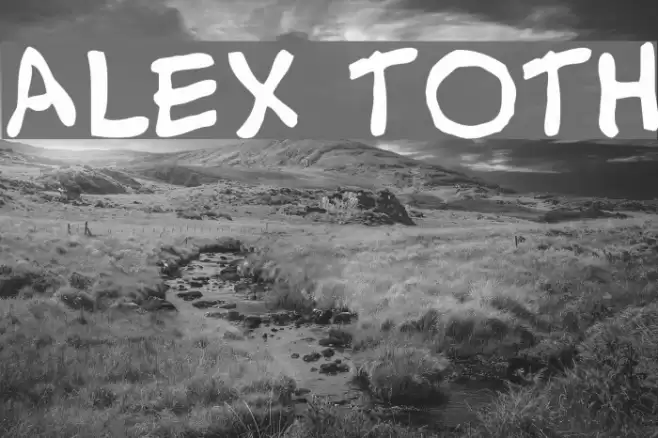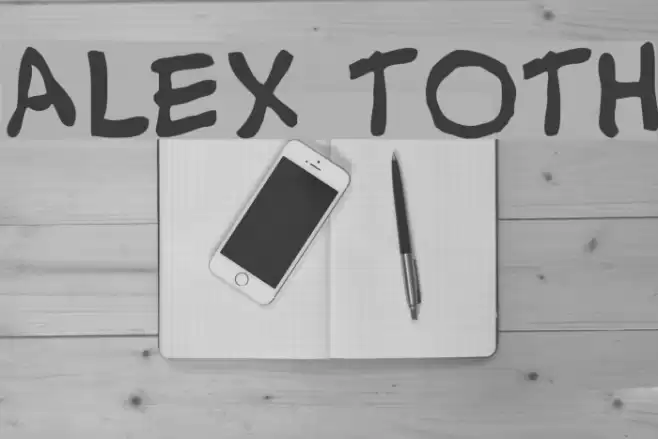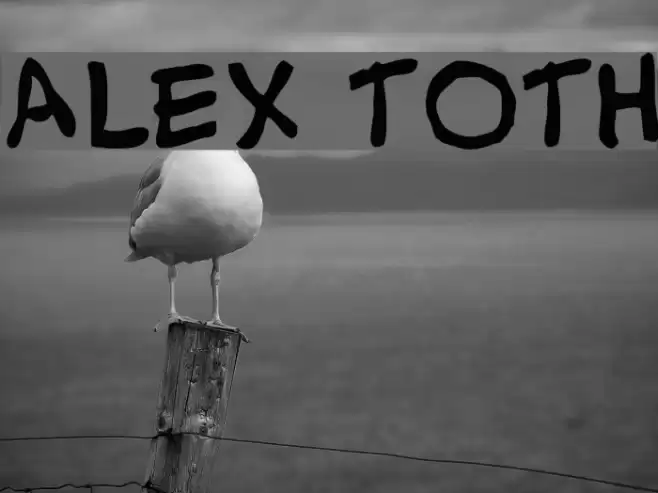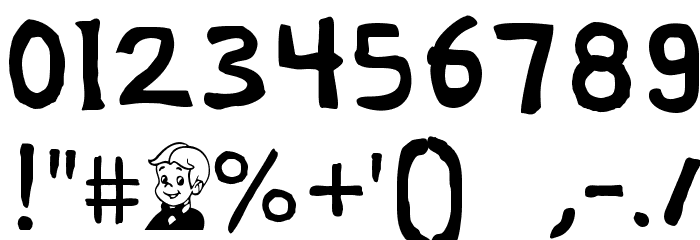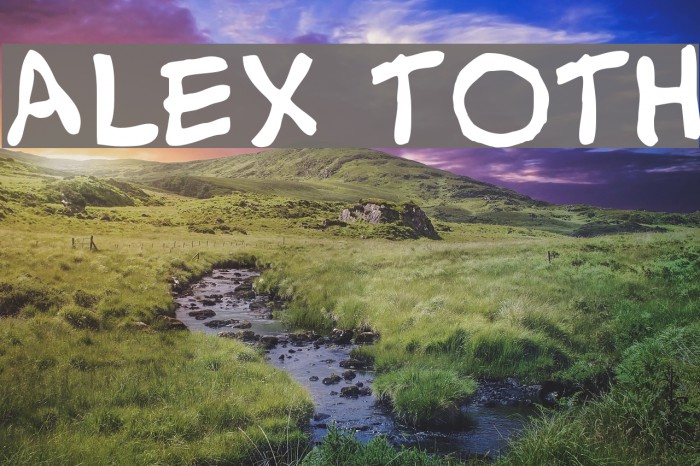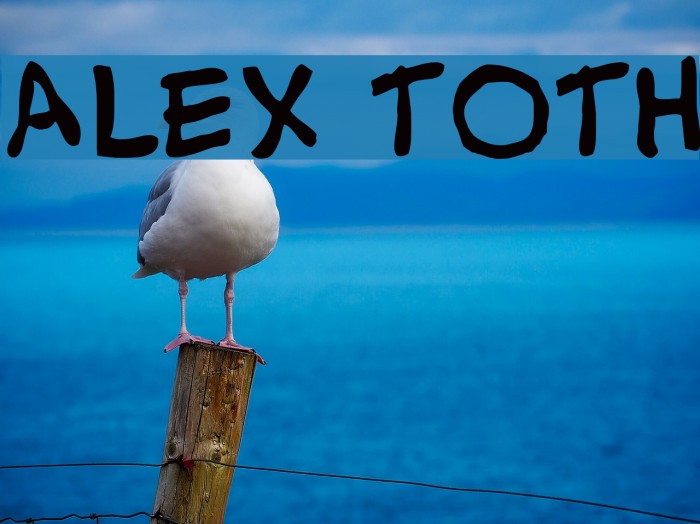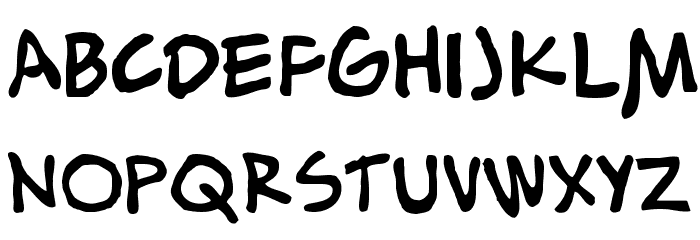
Alex Toth Font
Alex Toth Description
This font exhibits a playful and informal style, characterized by its hand-drawn appearance. The letters have a slightly uneven baseline, adding to the casual and whimsical feel. The strokes are bold and consistent, with rounded edges that soften the overall look. The uppercase and lowercase letters maintain a cohesive design, while the numerals are clear and easy to read. Special characters are included, enhancing its versatility. This font is ideal for projects that require a friendly and approachable tone, such as children's books, comic strips, or casual branding.
A playful, hand-drawn font with bold strokes and rounded edges from Uncategorized fonts.
- Proposed Projects: Children's books, comic strips, casual branding, playful posters.
- Overall Style: Playful